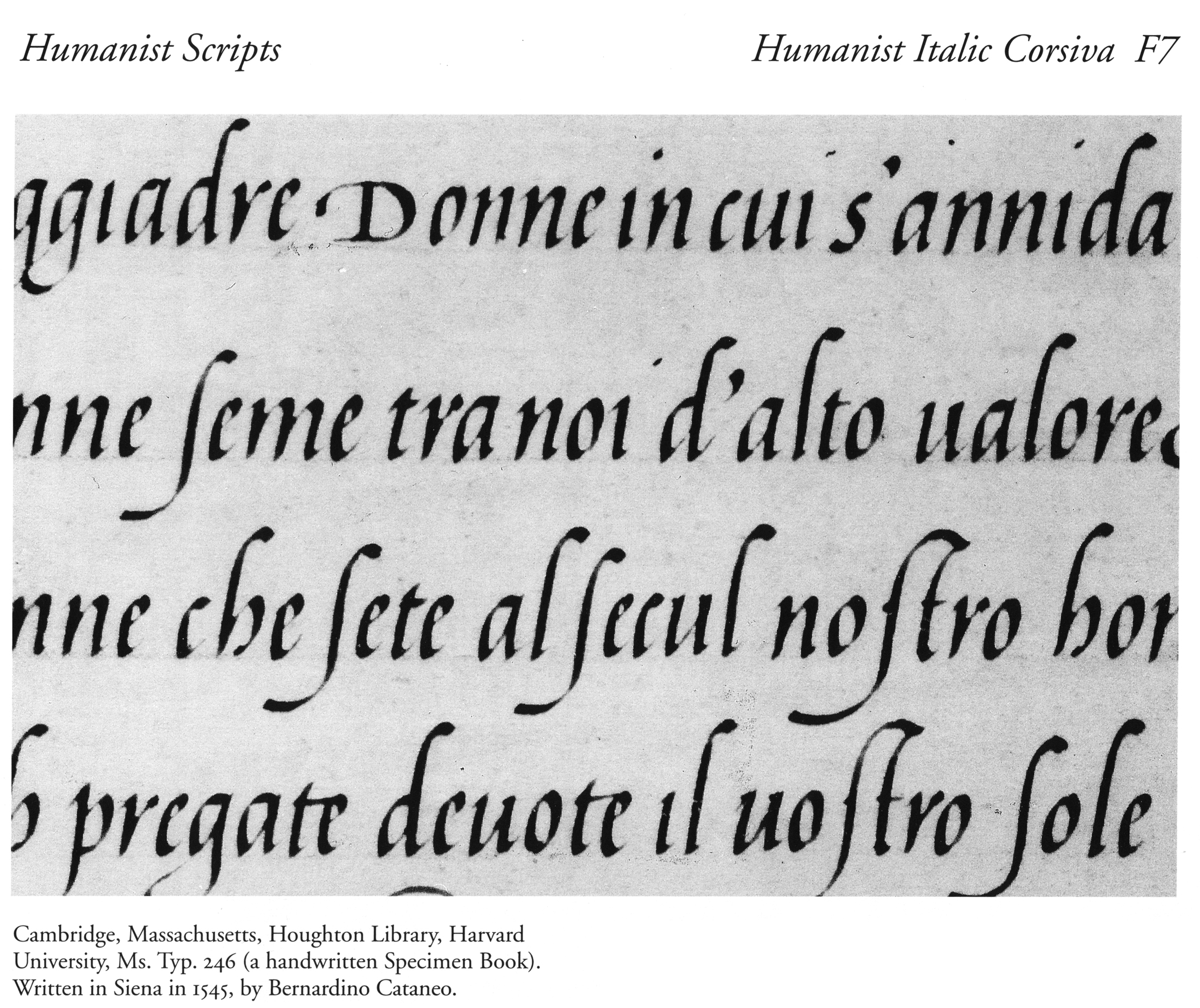
Three Ways to Improve Your Italic Calligraphy
One of the foundations of type design and lettering is calligraphy. Learning calligraphy can improve the quality of your work. But where to start? Senior Type Designer and accomplished calligrapher Richard Lipton sat down with TypeThursday about how studying italic hands is a great place to start learning.